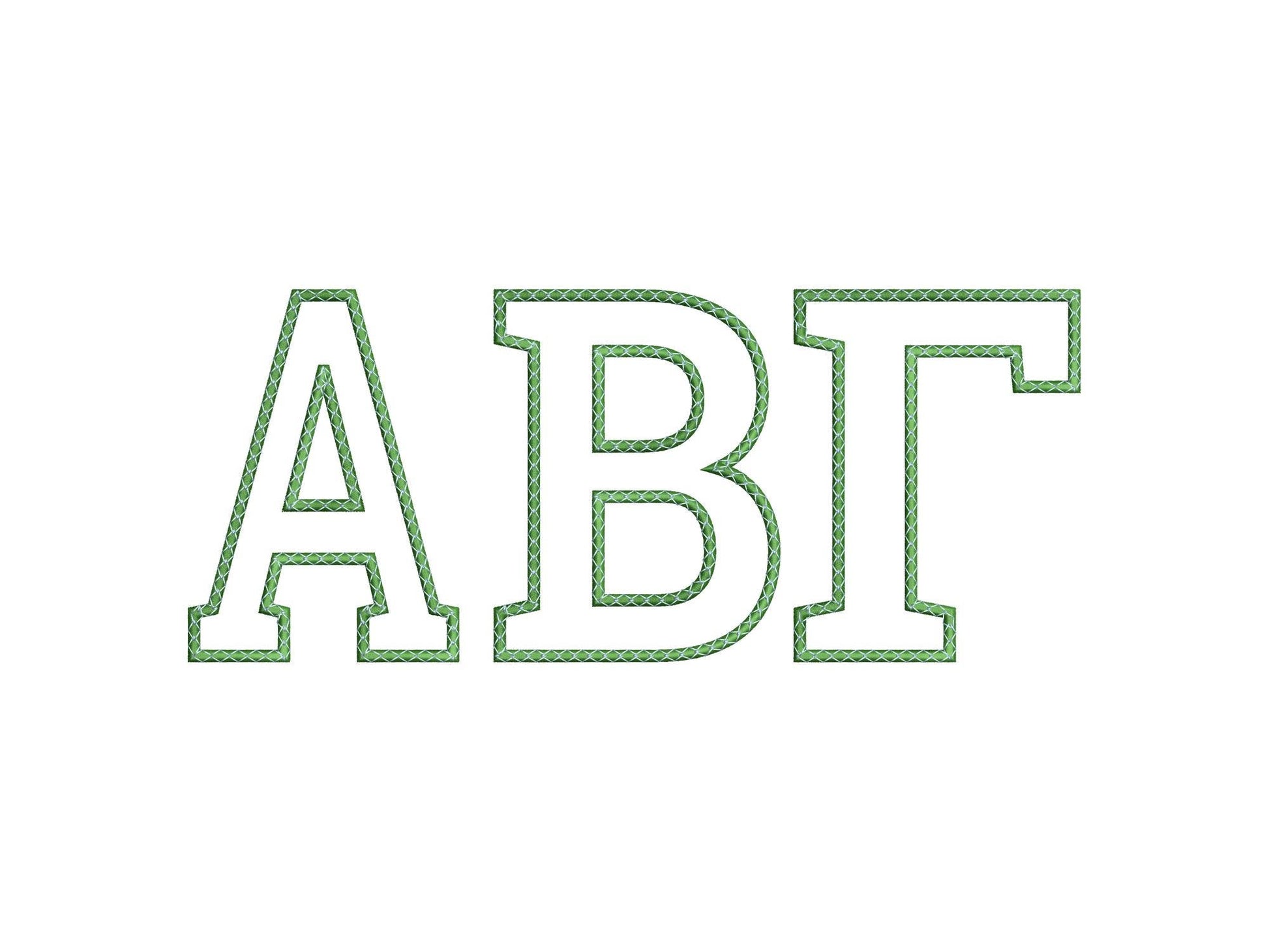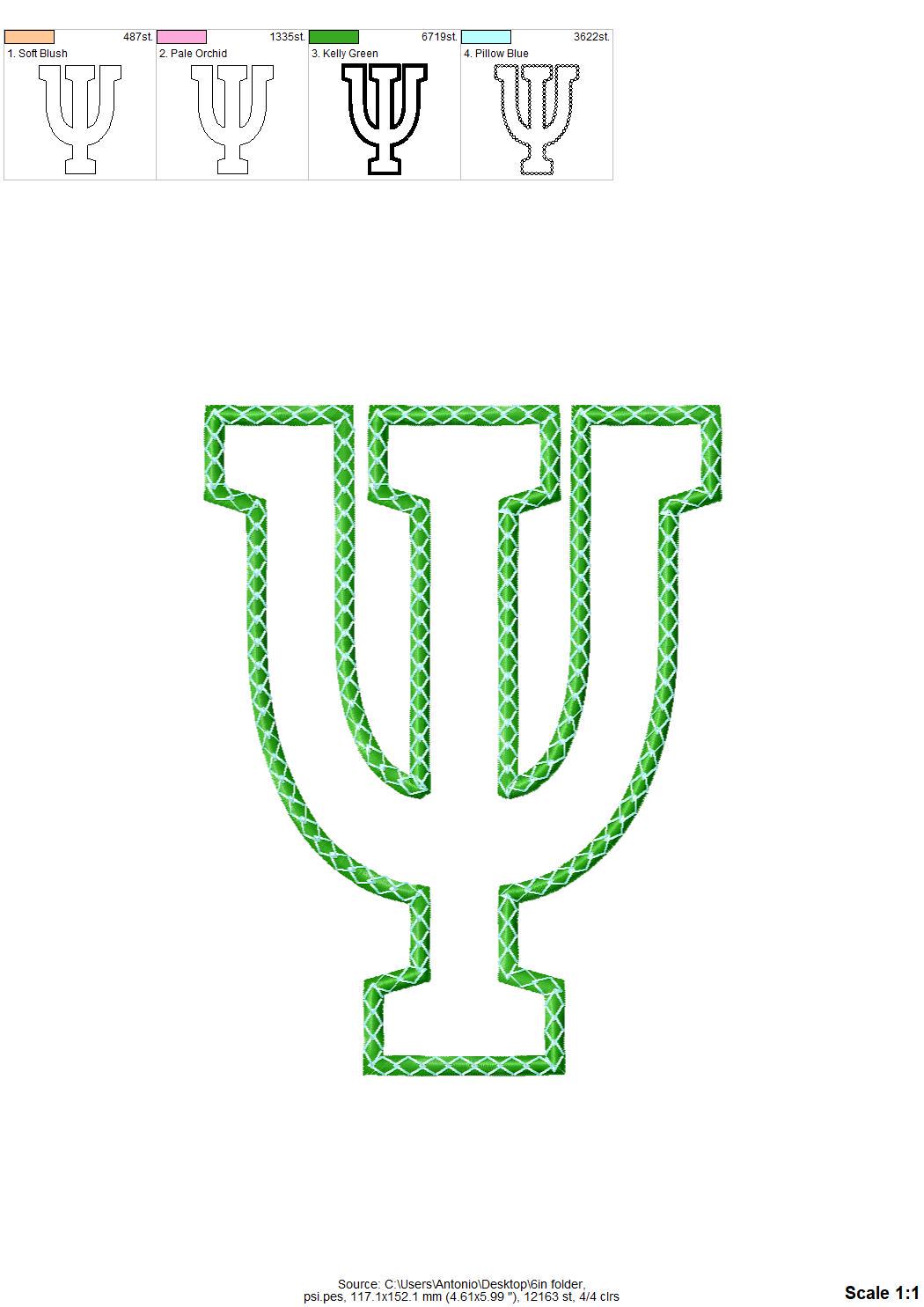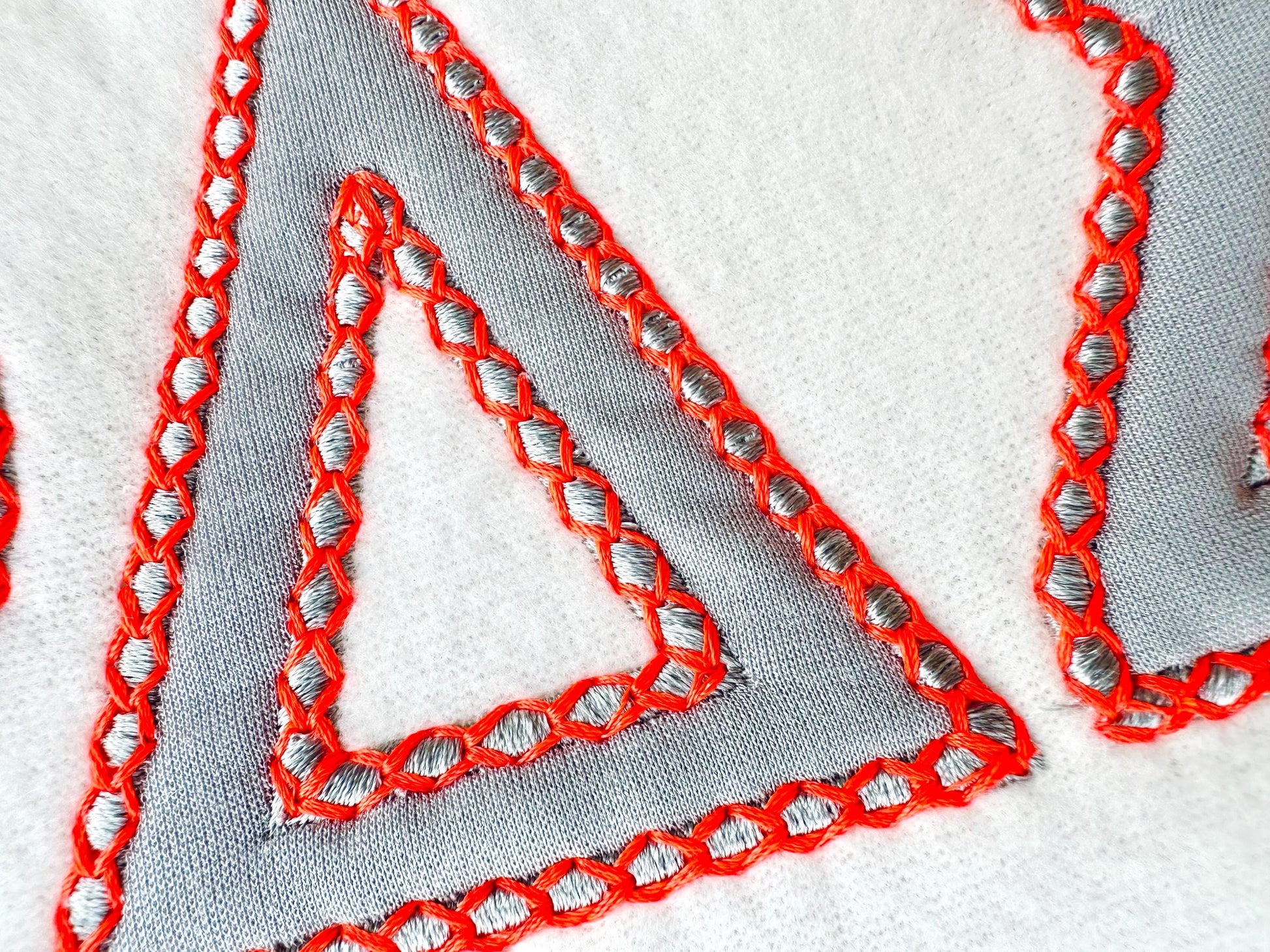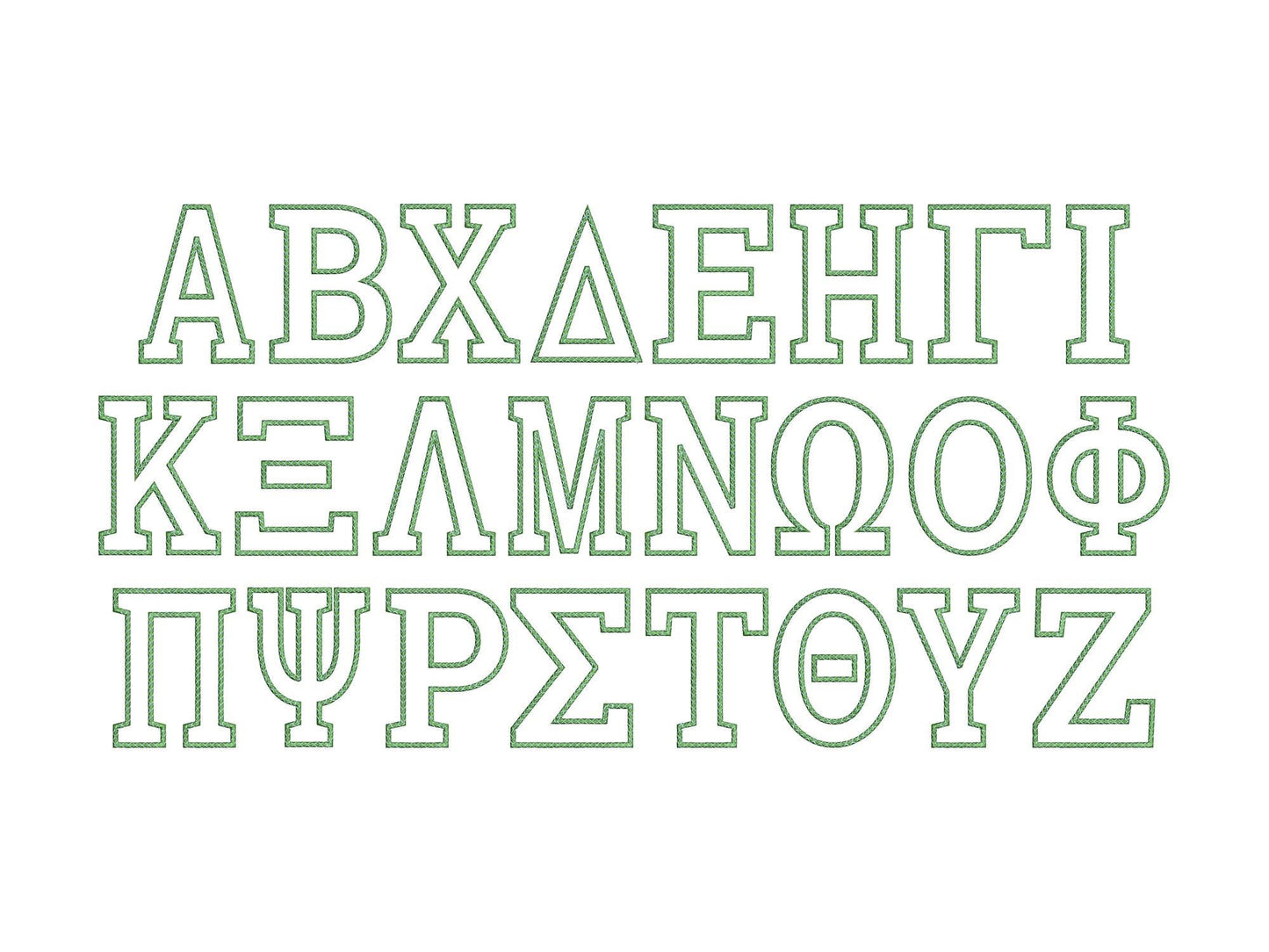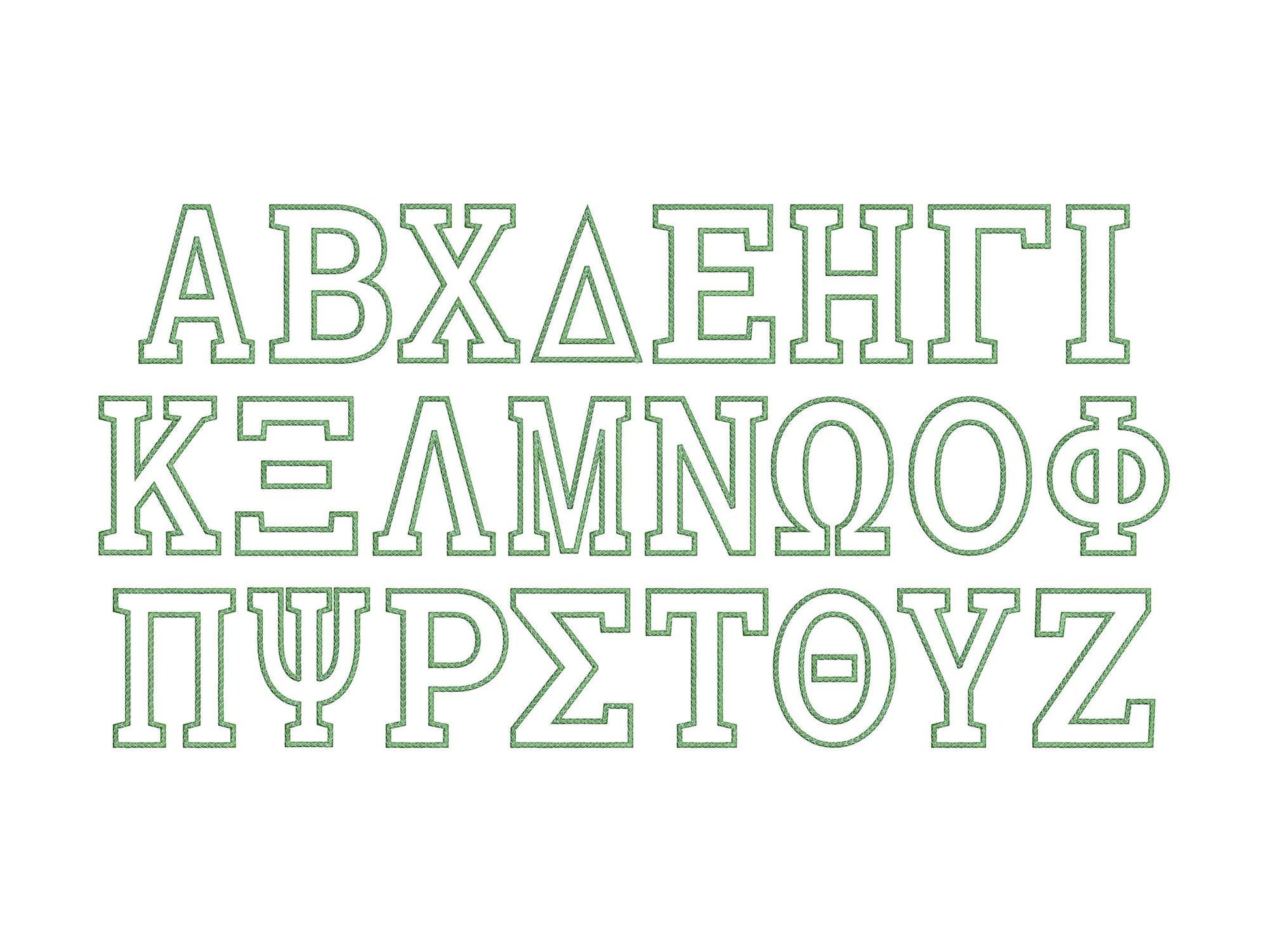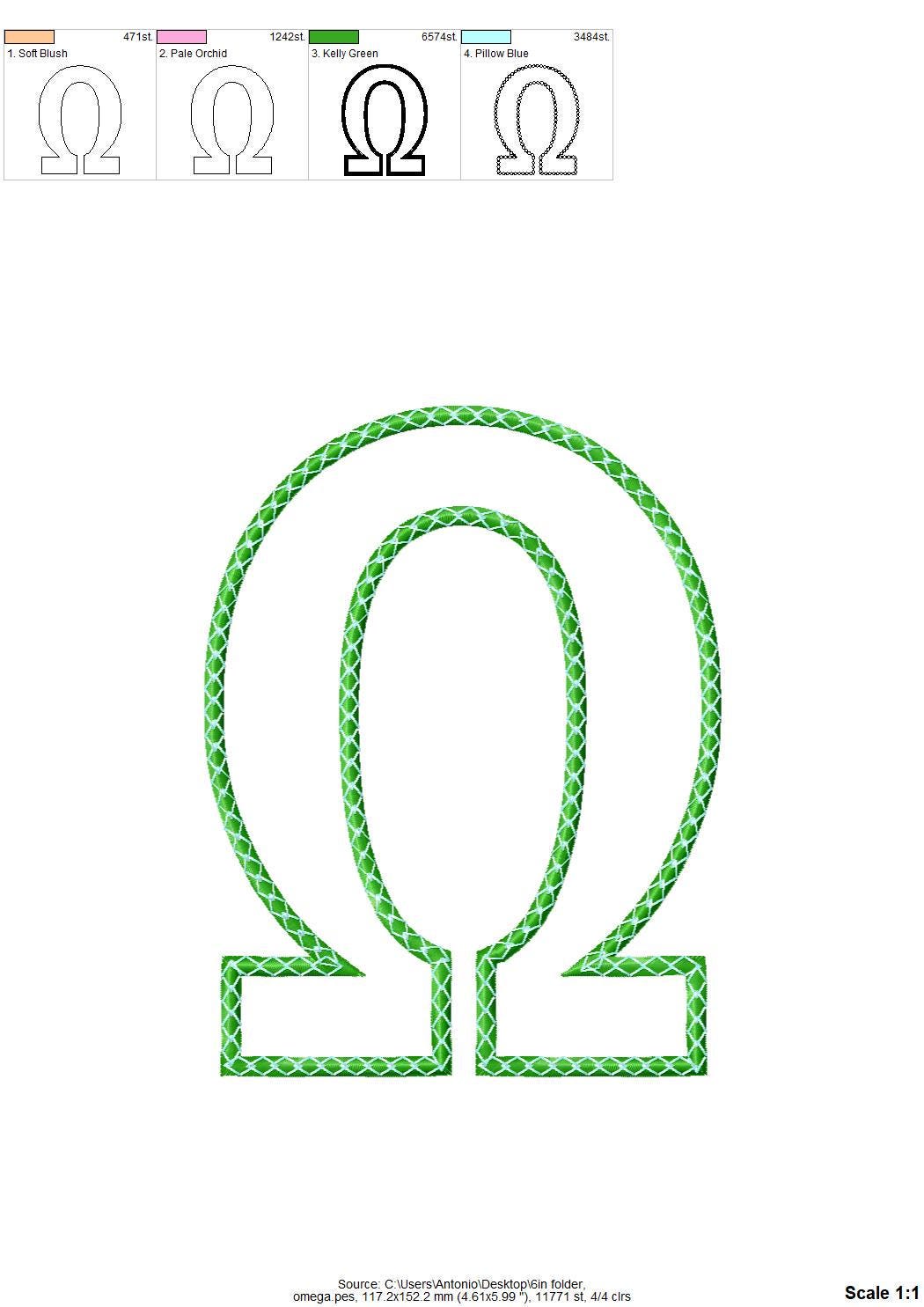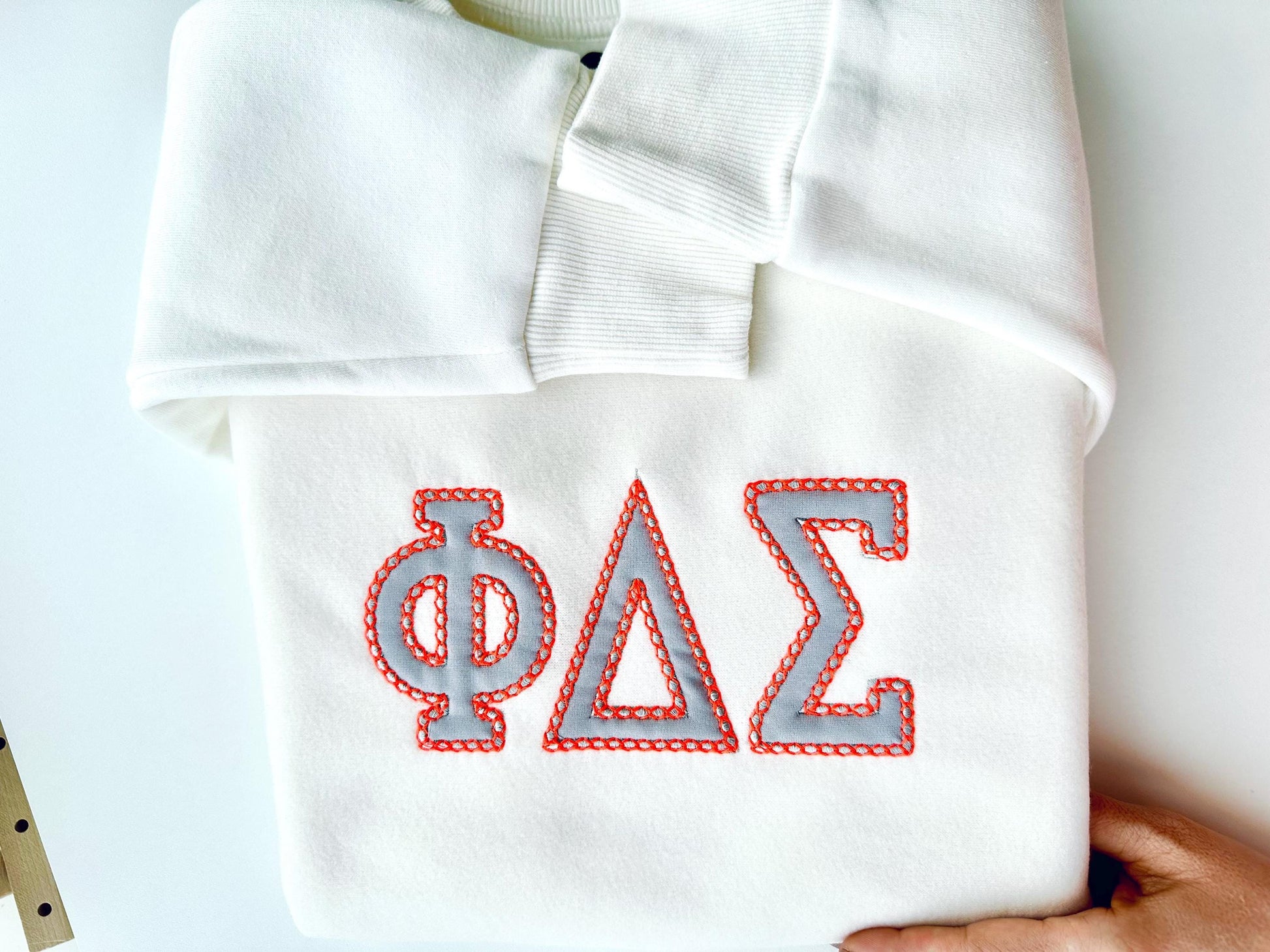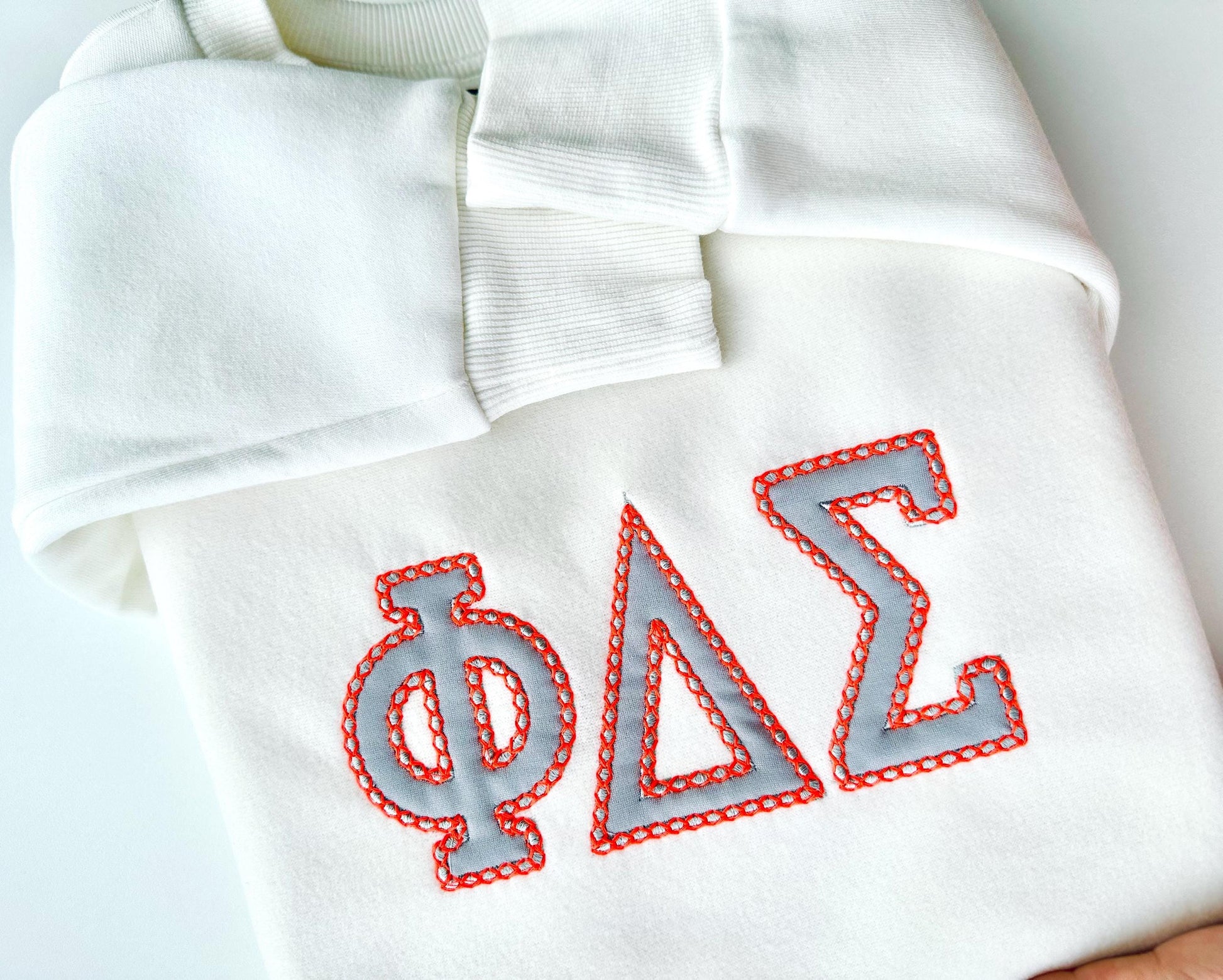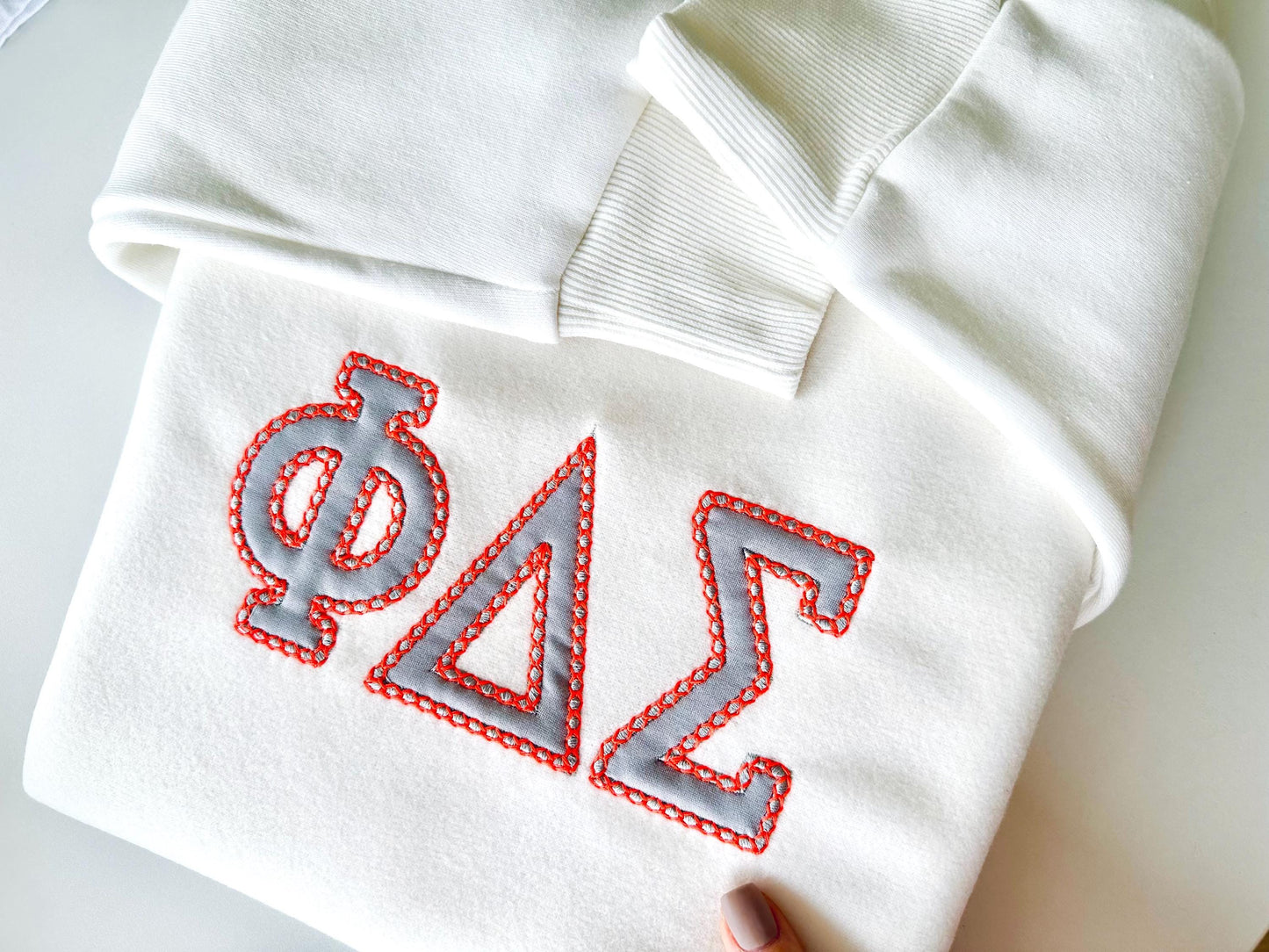
Or click to open the linkBig Greek letters as applique with a satin outline and a decorative top stitch. Bold for sorority and fraternity sweatshirts and blankets.
All 24 Greek letters in five sizes: 4, 5, 6, 7 and 8 inches. Classic satin outline with a neat decorative stitch on top.